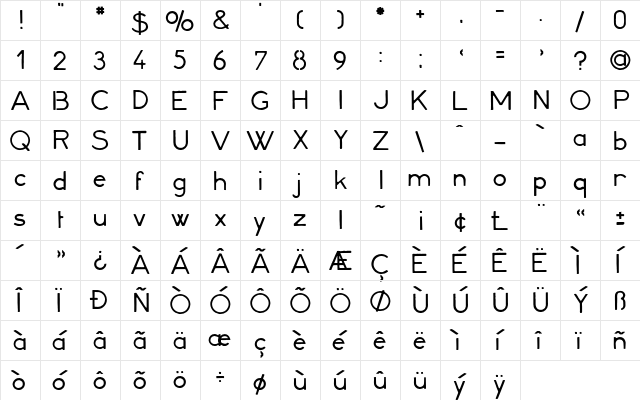
Minerva16 Regular
| Foundry | J O E B O B graphics |
| Designer | J O E B O B graphics |
Design Context for Minerva16 Typeface
Minerva16 is a composed and adaptable typeface that performs quietly and consistently across a wide range of design contexts.